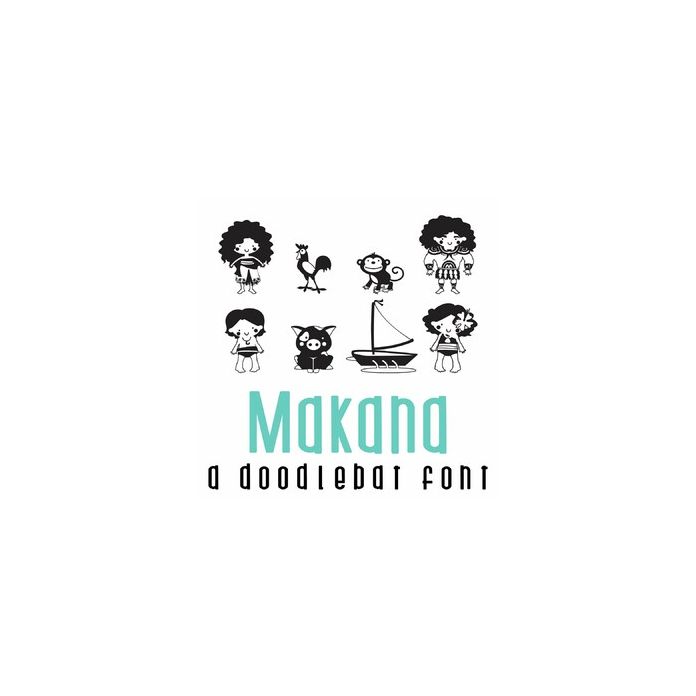
This fun doodlebat font features 26 characters from your favorite sea adventure. Perfect for cards, gifts, decor, crafts, scrap book pages, planner stickers and more!